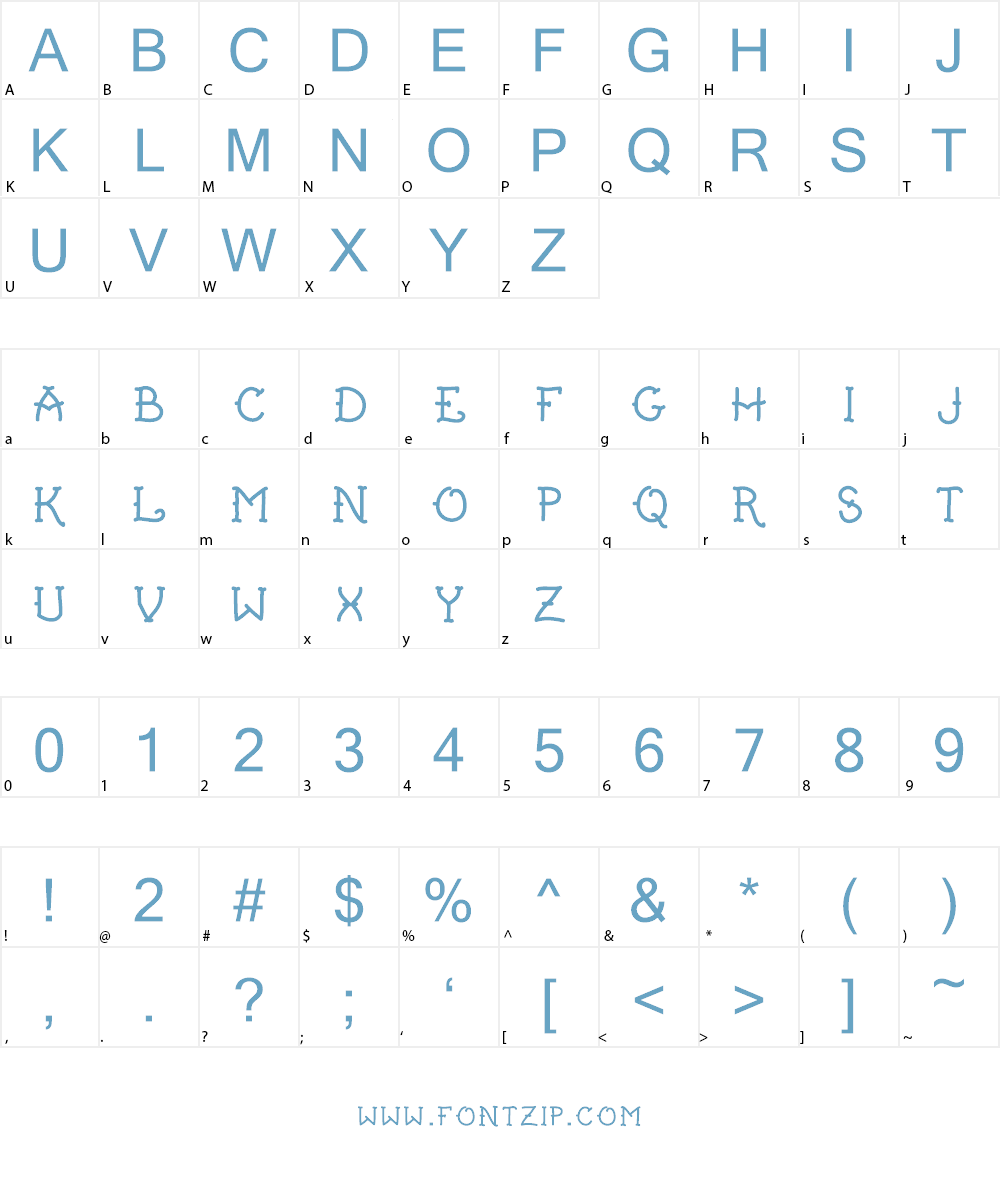
Hello Sailor Monoline Regular is a brand new tattoo flash and merch design font. We've rebuilt the font from the ground up using evenly-weighted monolines.
The full version features 283 glyphs:
- Serif characters and alternates in the upper case
- Traditional tattoo flash filler characters in the numbers and punctuation
- Limited punctuation
- European character support